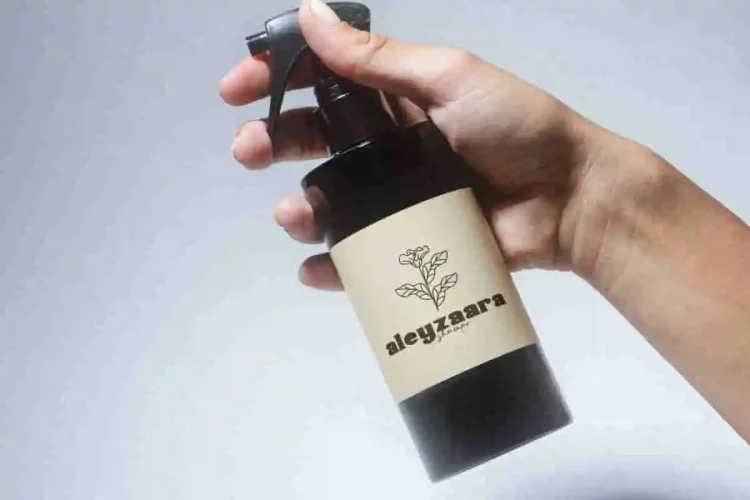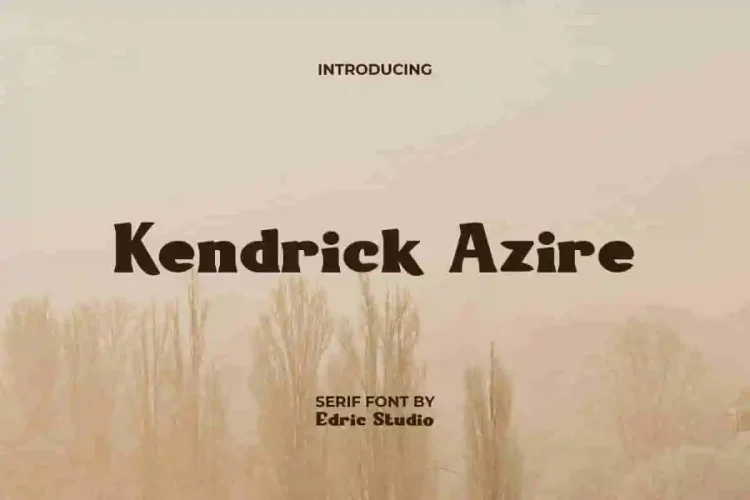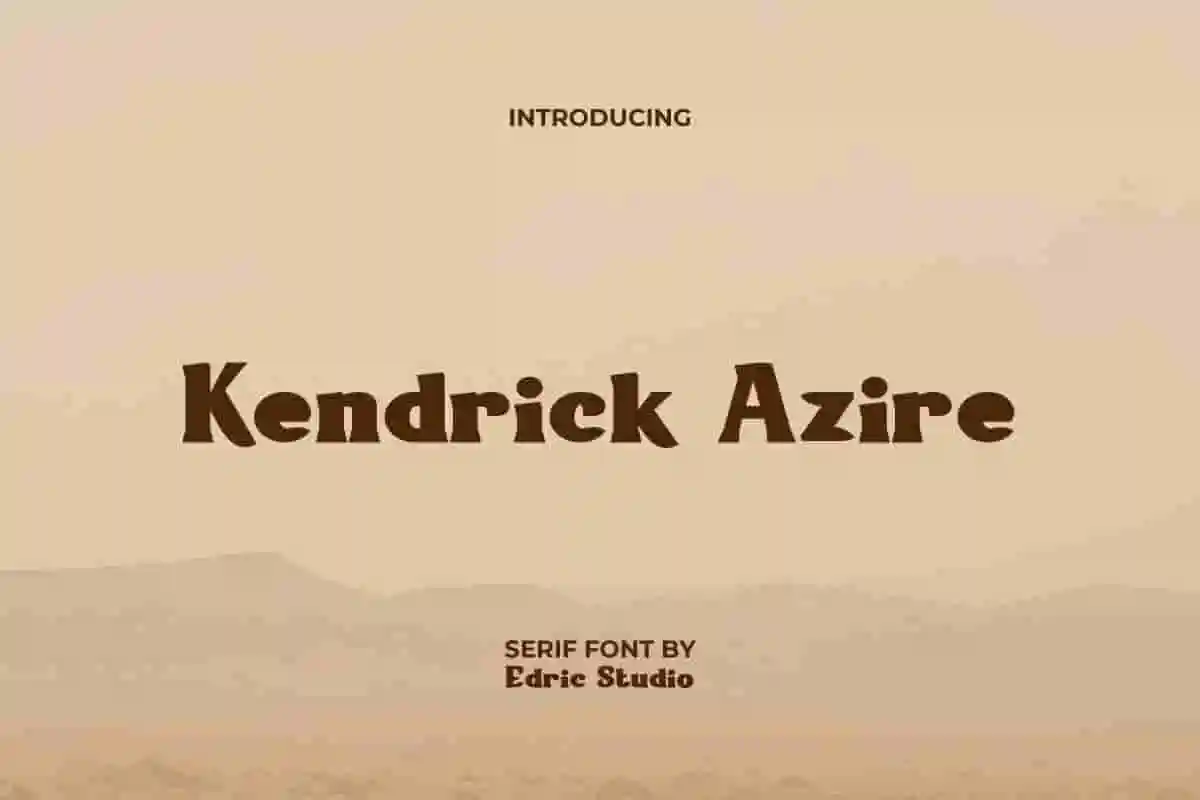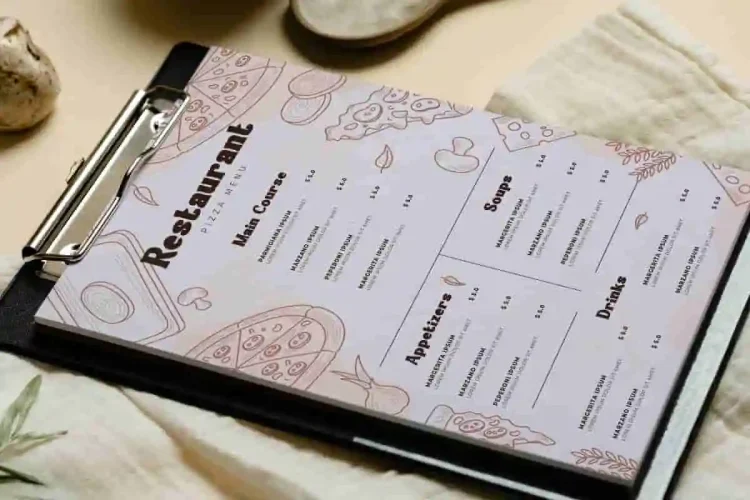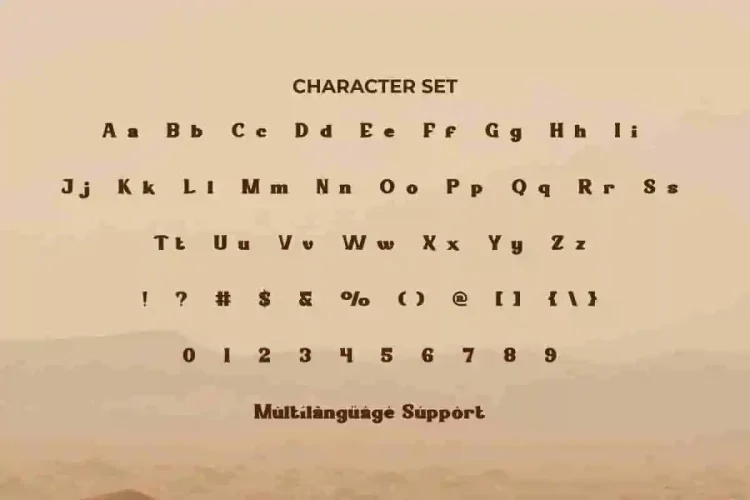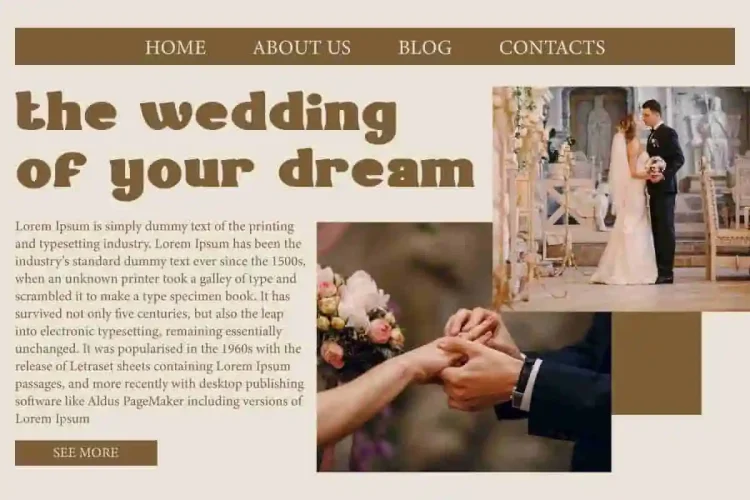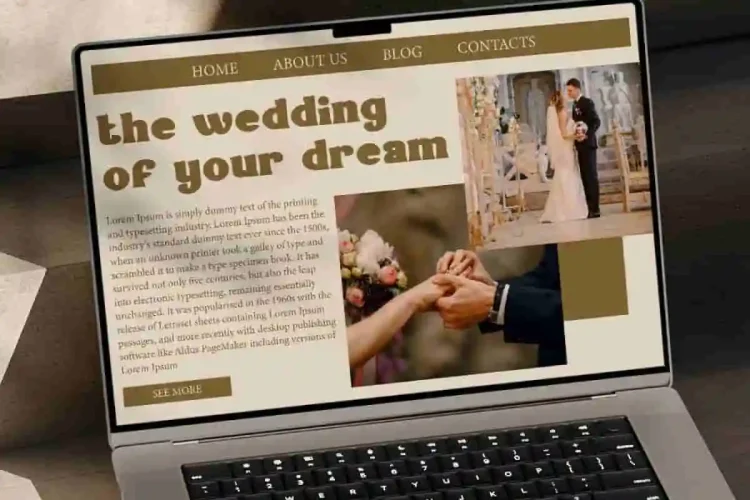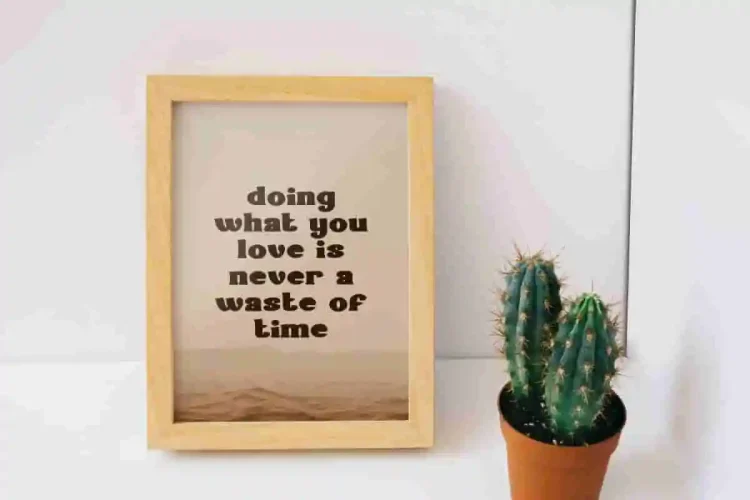
Kendrick Azire Classic Font
Kendrick Azire Font is a classic American serif-style display font packaged in a more sophisticated form. It features a simple and natural design that evokes nostalgia in a modern era. Add this font to your collection to use on projects you want to combine with this font. The unique and flexible design shape of this font can be used in apps, blogs, brand logo, brochure, flyer, menu, mockup, headers, label, packaging, poster, quotes, sticker, template, title, website, and more.
Kendrick Azire Font includes a complete set of Uppercase and Lowercase letters, Numbers, Punctuation, and Symbols. This font has a beautiful letter shape and looks different from the usual with a design that is perfectly made for your editing needs. Suitable for anyone who craves a touch of cool and natural style.